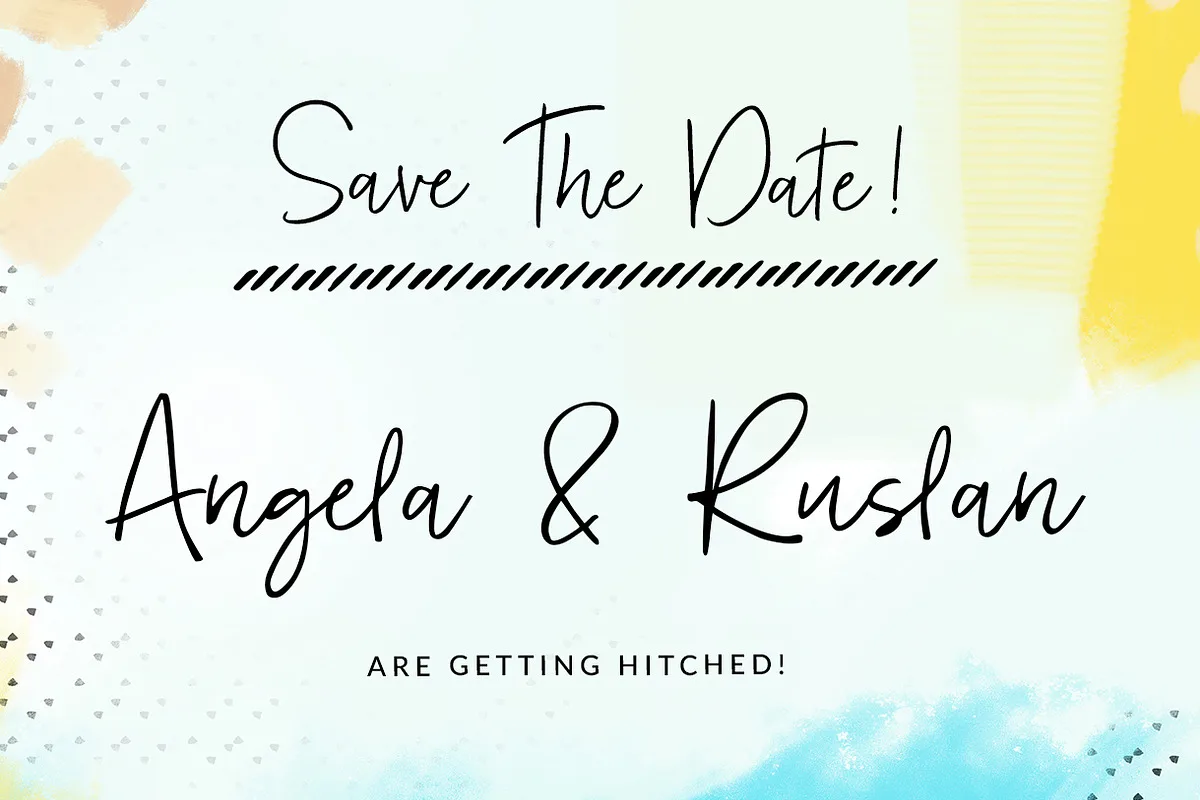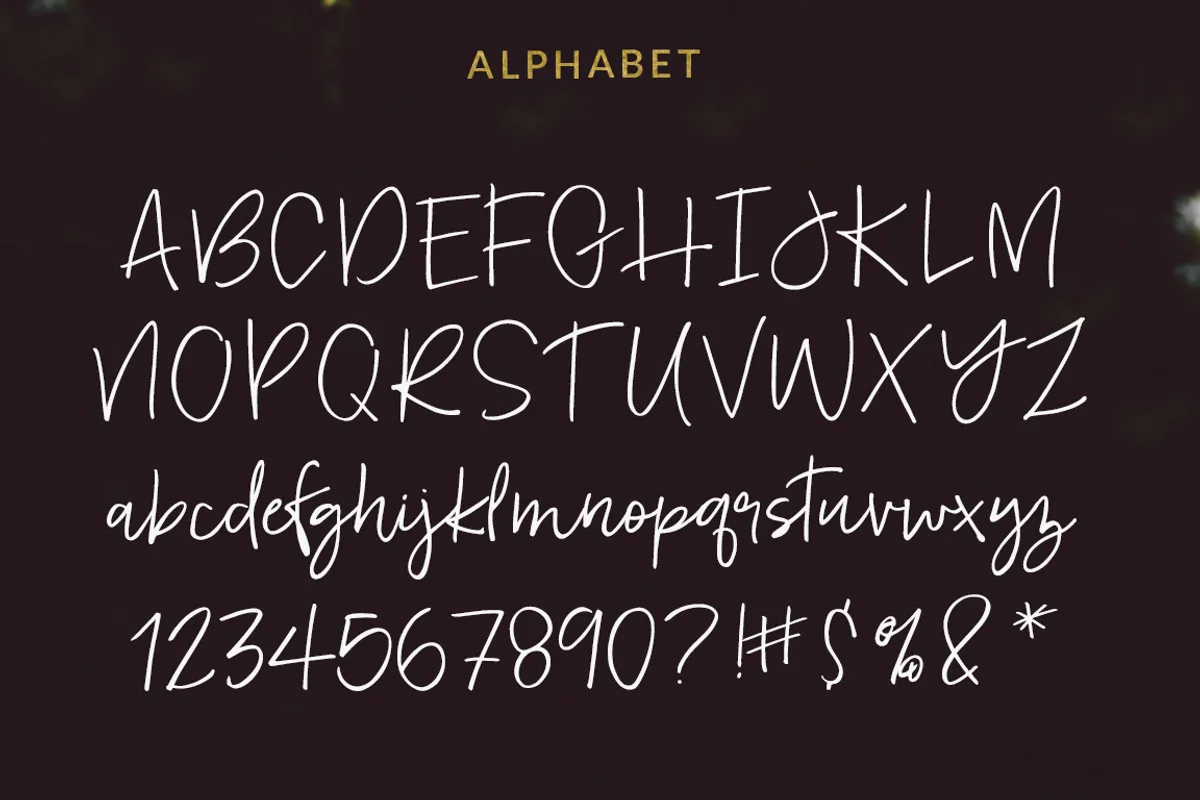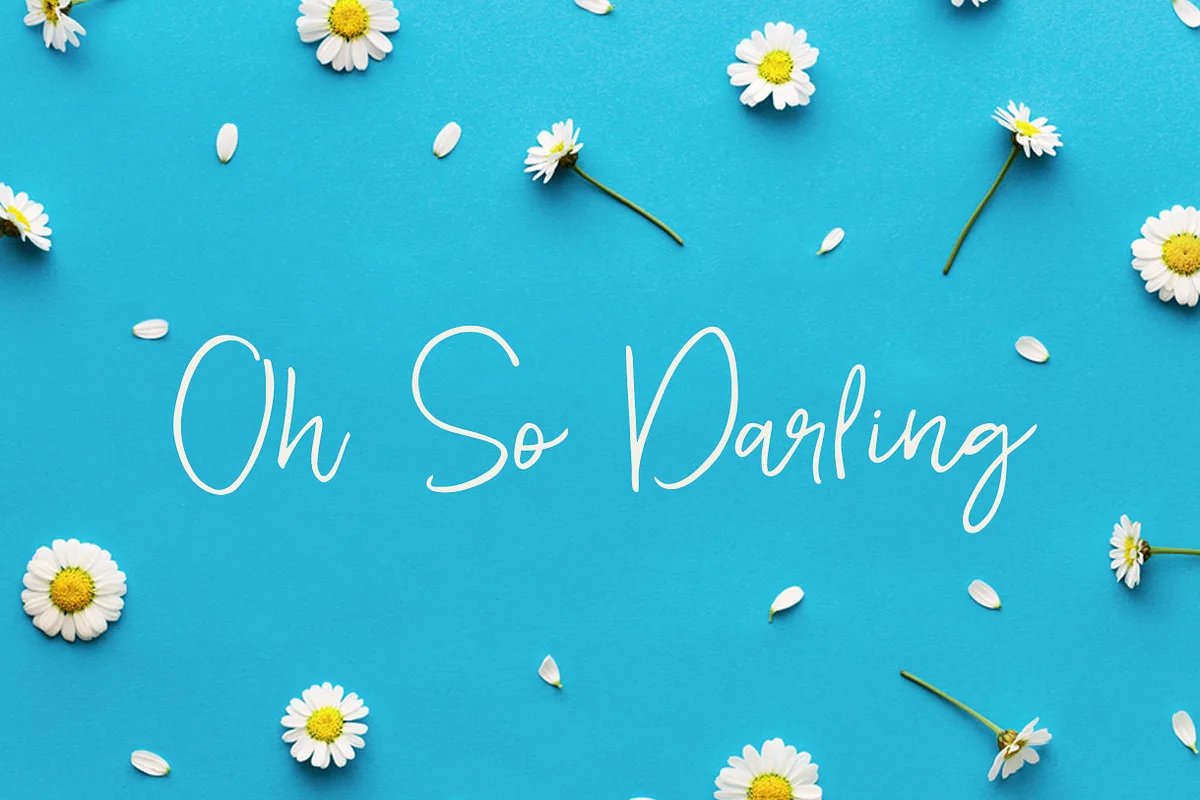
Foxglow is a fun, handwritten font with swashes and extras. It has a sweet, handwritten vibe and would be a great fit for a variety of projects. Opentype features include contextual alternates for double letters and unique pairs (bb, cc, ll, tt, th, etc). Foxglow would be a perfect fit for wedding invitations, branding, websites, signage, and so much more.